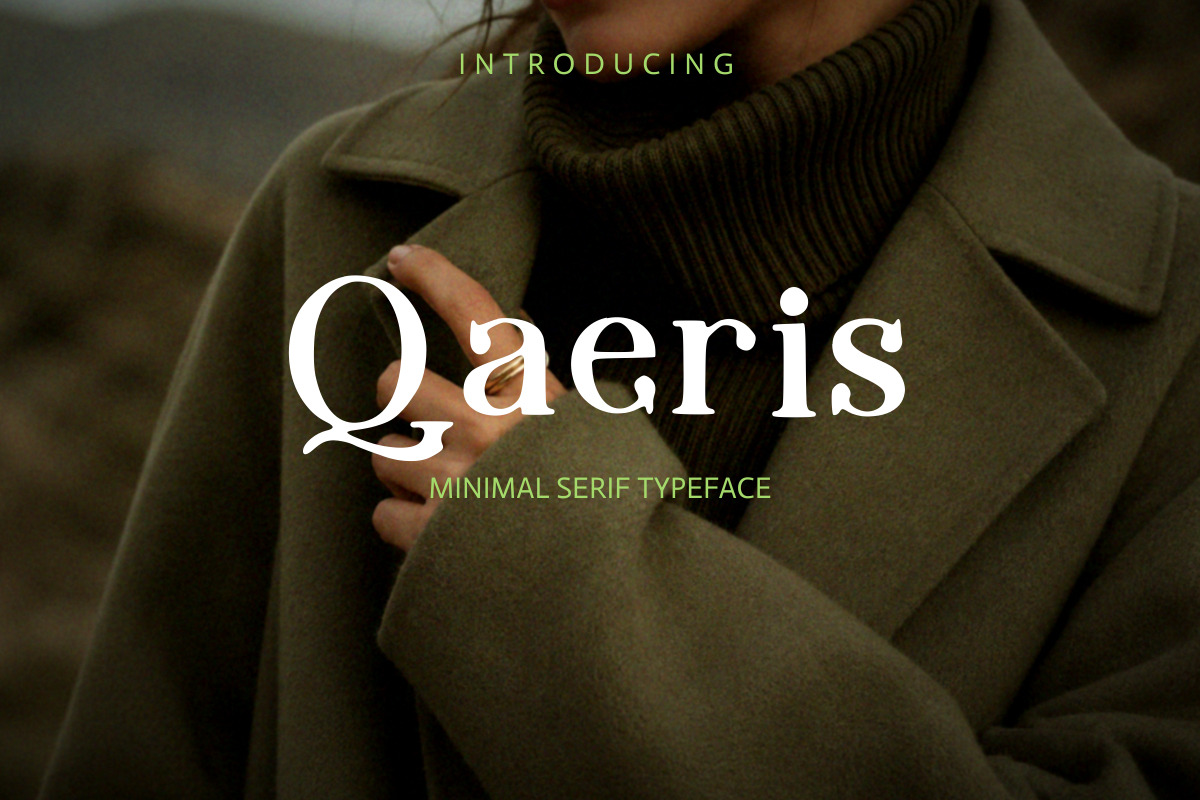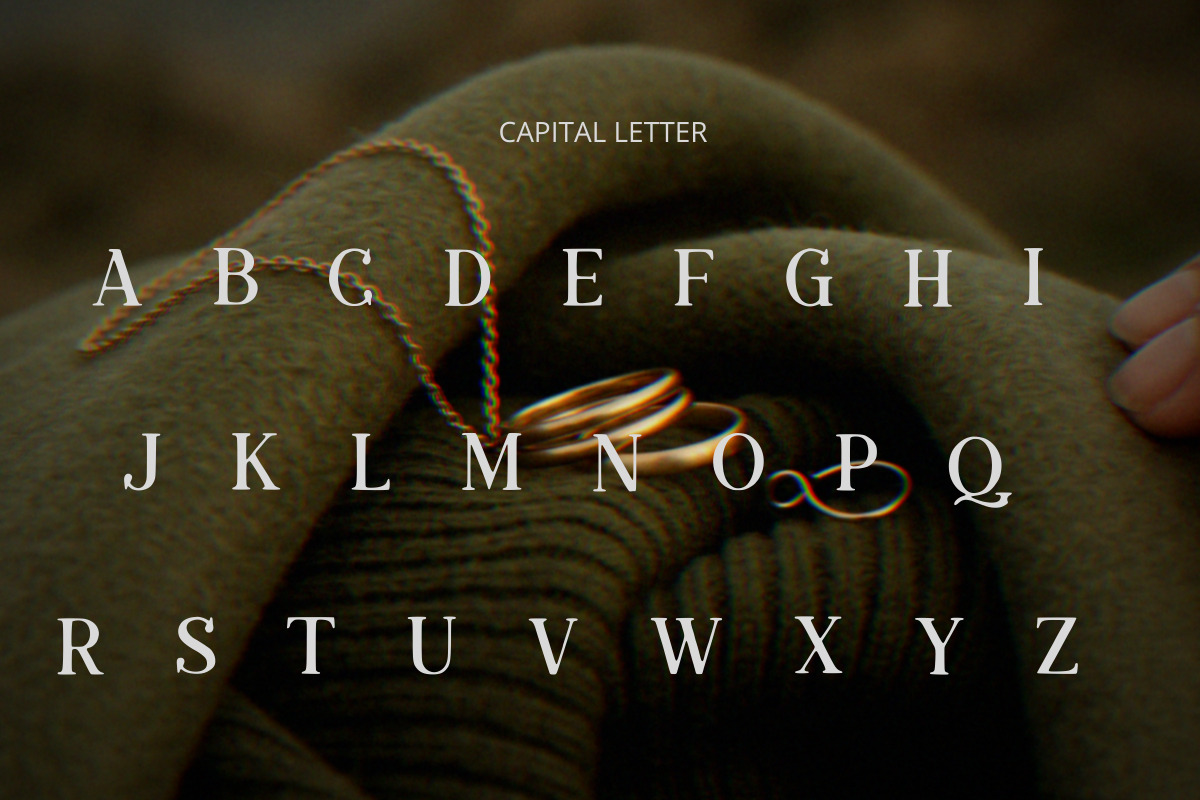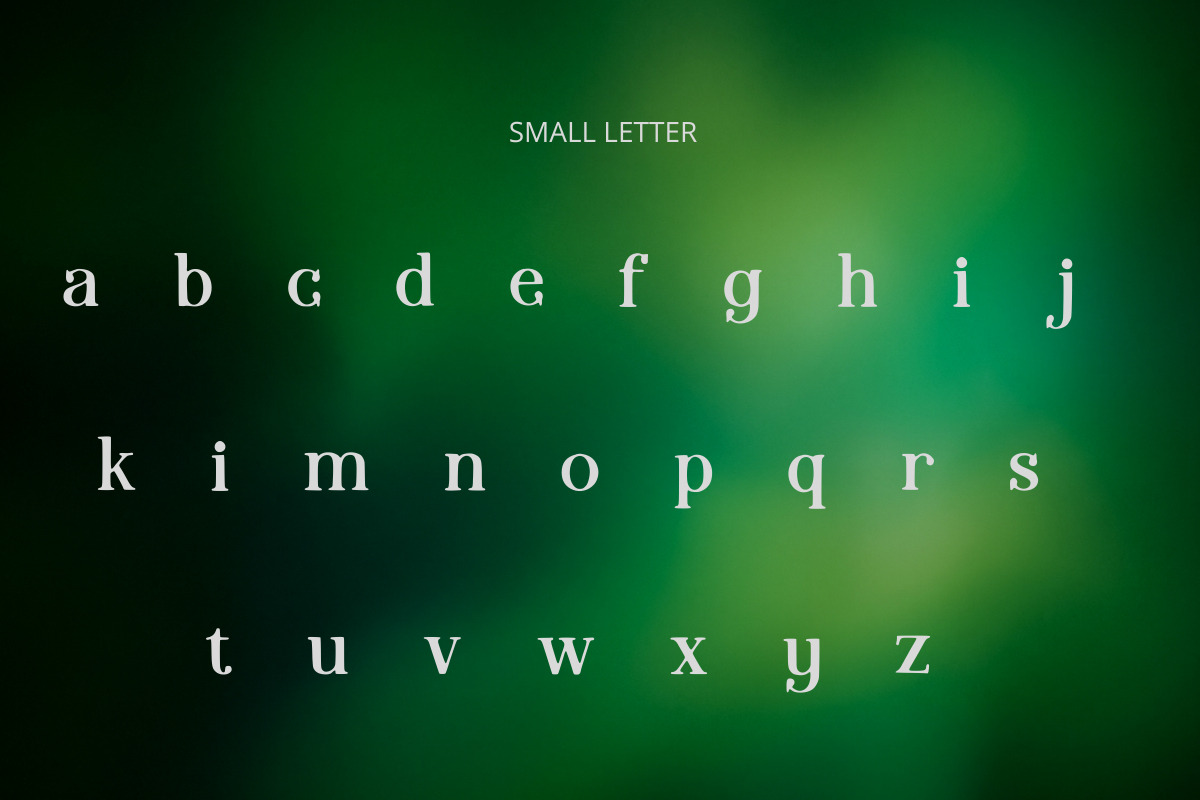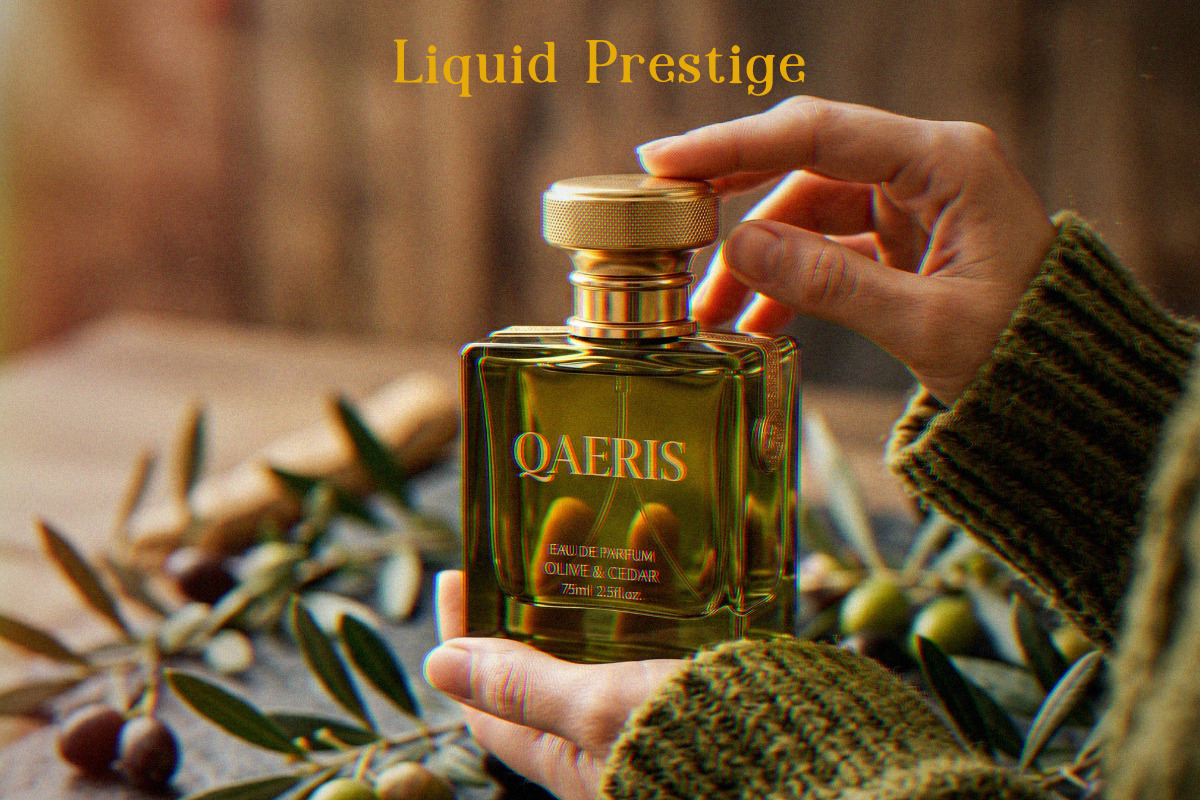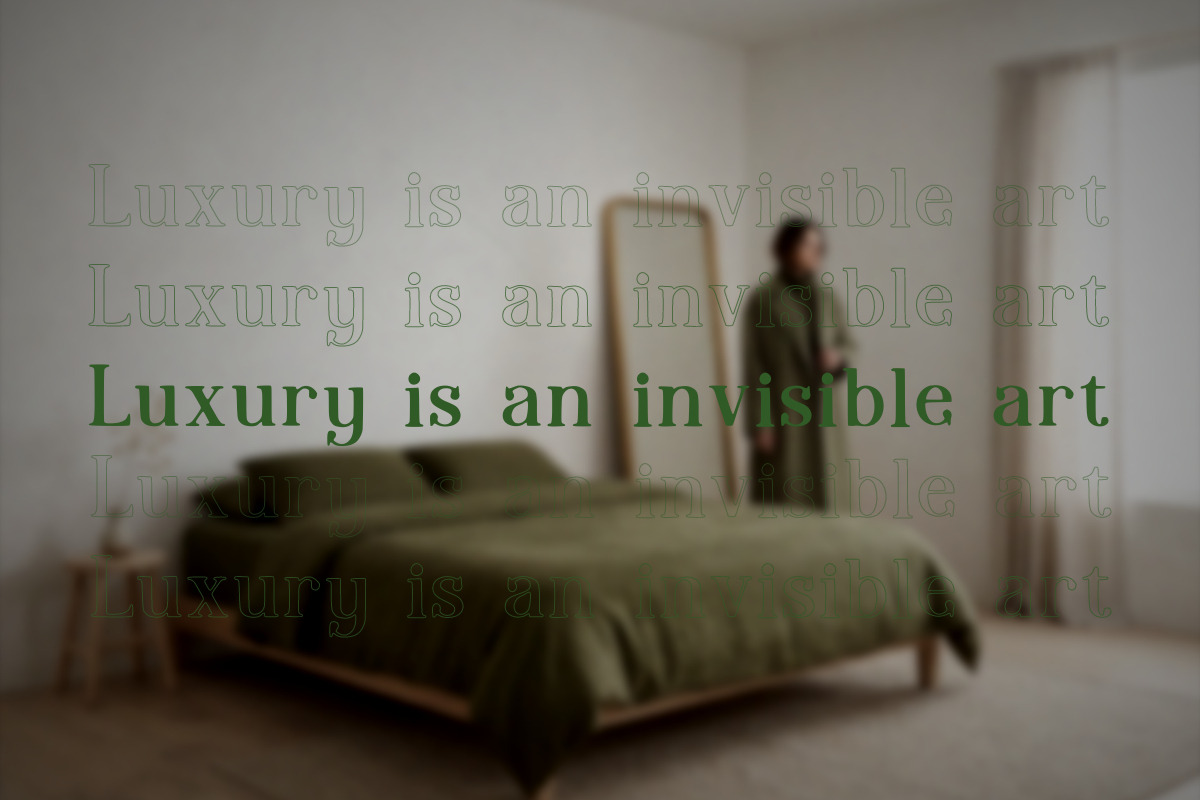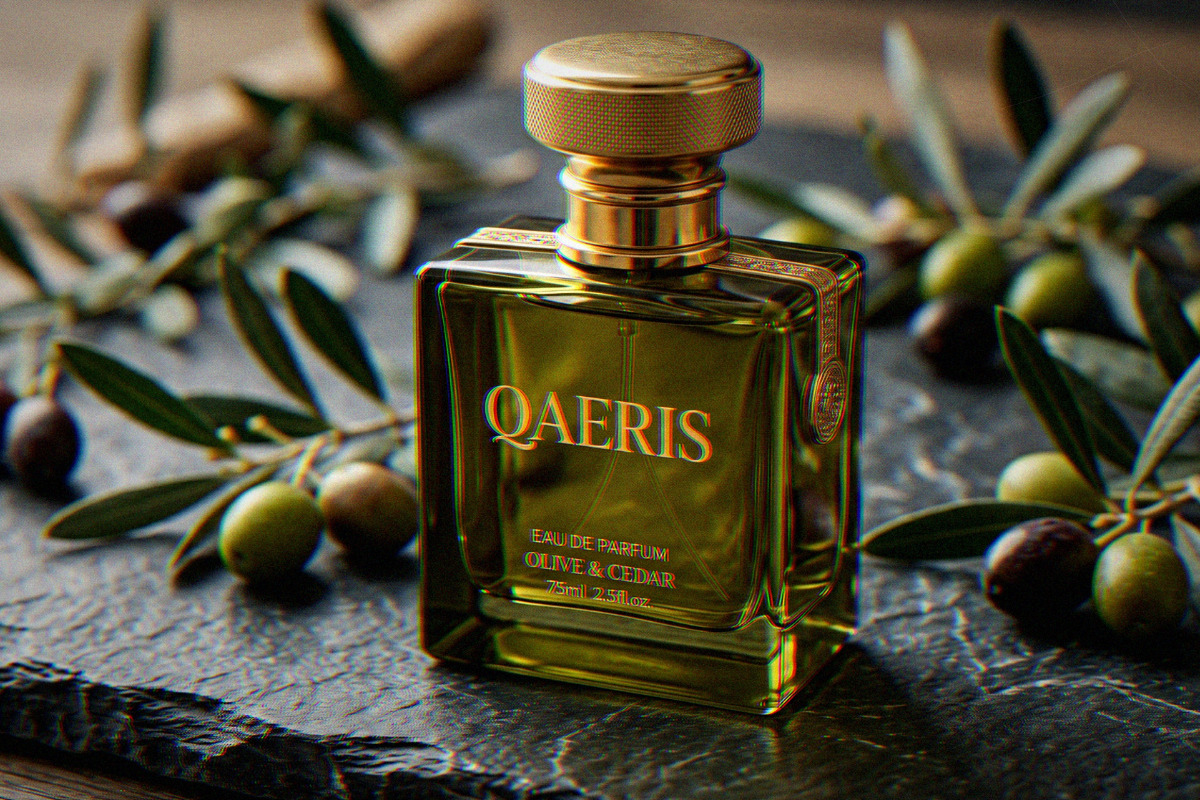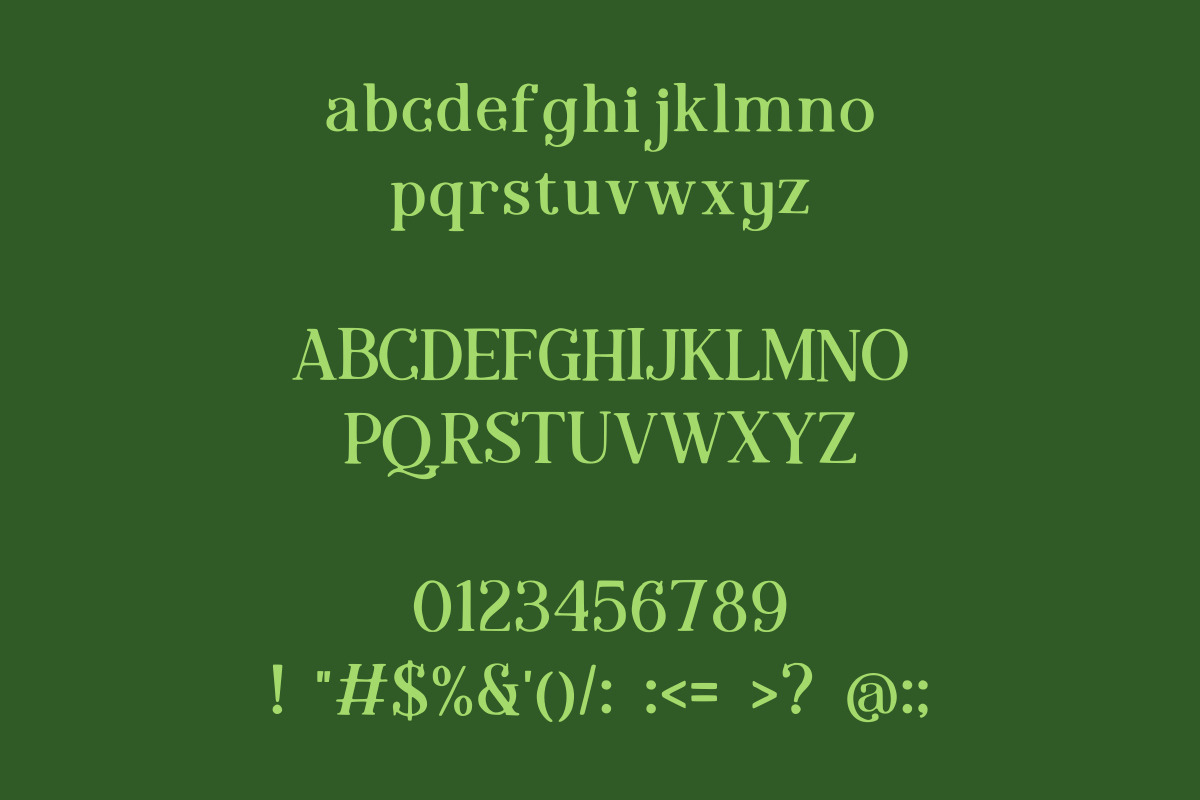
Qaeris Minimal Luxury Serif Typeface
Introducing Qaeris — a minimal, upright serif typeface crafted for brands that lead with restraint and sophistication. Clean bracketed serifs, balanced proportions, and a calm, confident upright stance make Qaeris the go-to choice for luxury product labels, fashion editorials, high-end packaging, and any identity that lets quiet elegance do the talking.
Inspired by the best of classical serif tradition but stripped of unnecessary ornament, Qaeris sits beautifully at display sizes — commanding attention without demanding it. From perfume bottles to fashion lookbooks, from skincare labels to editorial covers, this typeface brings an air of effortless refinement to every project it touches.
• Upright (not italic) — calm, assured, and instantly trustworthy
• Minimal bracketed serifs give it a modern edge while retaining classical elegance
• Balanced stroke contrast — refined enough for luxury, readable enough for labels
• Distinctive Q letterform with an elegant descending tail — immediately recognizable as a brand mark
• Works beautifully in ALL CAPS for logo lockups and in mixed case for editorial headlines
• Equally stunning on dark backgrounds, light packaging, and engraved surfaces
• Uppercase letters: A B C D E F G H I J K L M N O P Q R S T U V W X Y Z
• Lowercase letters: a b c d e f g h i j k l m n o p q r s t u v w x y z
• Numbers: 0 1 2 3 4 5 6 7 8 9
• Punctuation & symbols: ! " # $ % & ' ( ) / : ; < = > ? @
• Single style — upright minimal serif display weight, optimised for headlines and large-scale use
• No additional weights, obliques, or alternate variants — what you see in the previews is exactly what you get
- Qaeris includes the following punctuation and symbols: ! " # $ % & ' ( ) / : ; < = > ? @ — covering the essential characters needed for brand names, taglines, labels, and editorial headlines.
- Qaeris is a display typeface, best used at heading and title sizes (24pt and above) where its refined serif details can shine. For body copy, pair it with a clean minimal sans-serif such as Lato, Raleway, or Jost for a polished, editorial look.
- Absolutely — Qaeris was designed with premium product applications in mind. Its upright stance, clean serifs, and elegant proportions are well-suited to perfume labels, skincare packaging, candle branding, wine labels, and any product that targets a discerning, design-conscious audience.